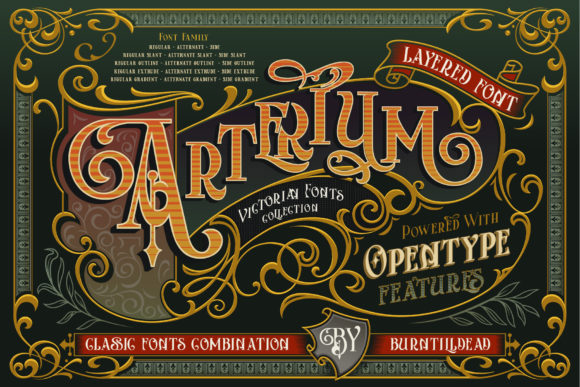
Arterium Font: A Comprehensive Review
Arterium is a bold, classic, and elegant serif font that has become a staple in my design library. Here’s what I love about it:
- ✅ Elegant and sophisticated design
- ✅ Perfect for headlines, titles, and emphasis text
- ✅ Highly versatile and adaptable to various design styles
While Arterium Font is an excellent choice, there are a few things to keep in mind:
- ⚠️ Some users may find the font a bit too bold for certain design applications
- 🤔 Limited availability of certain characters and symbols
The Designer Inspiration Behind Arterium Font
Arterium Font was inspired by the classic serif fonts of the past, with a modern twist. The designer aimed to create a font that was both elegant and bold, perfect for making a statement in any design. While the real story behind Arterium Font’s creation may be unknown, its design and functionality are undoubtedly inspired by the world of typography and the pursuit of beautiful design. 💡
| Font Name | Arterium Font |
| Author | Burntilldead |
| What is Arterium Font? | Arterium Font is a bold, classic, and elegant serif font designed for creative professionals. |